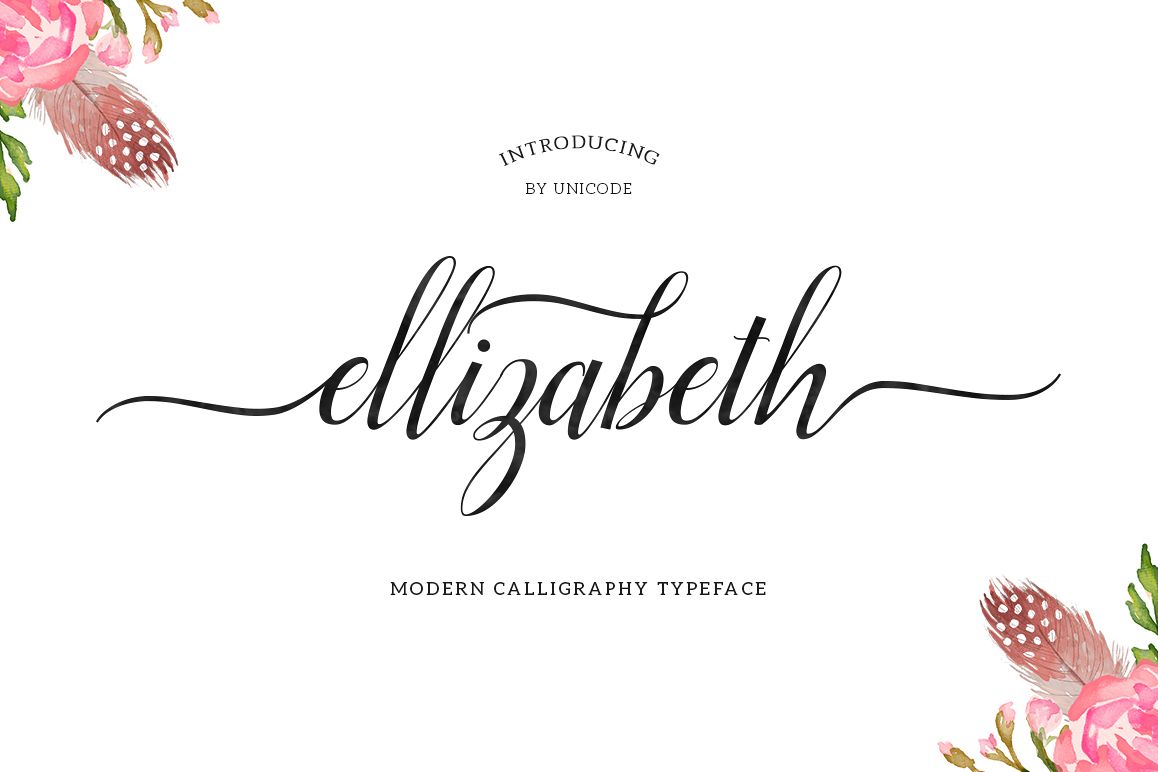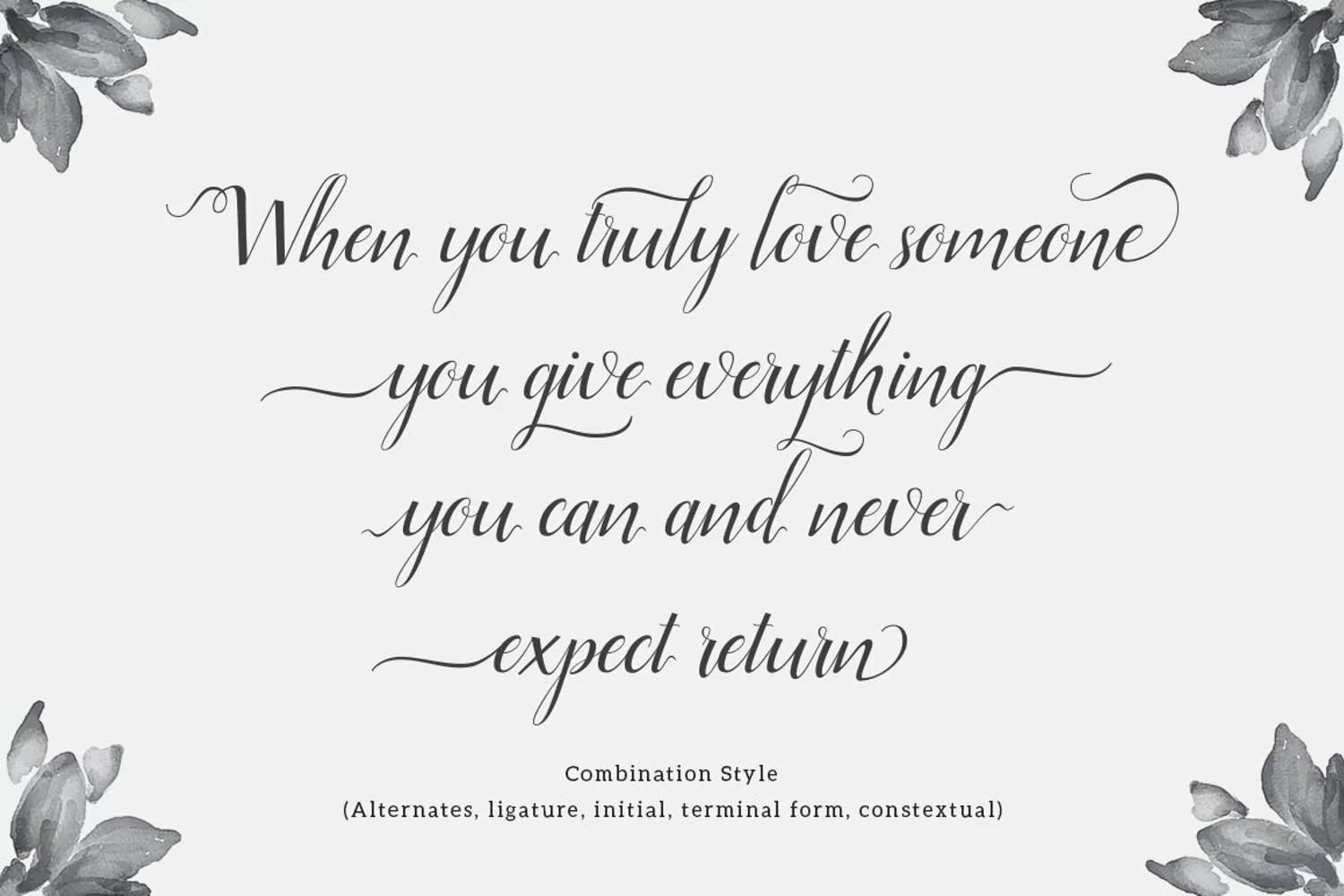
Elizabeth is a script typeface beautiful calligraphy and modern with inreguler baseline. This font is suitable for a wide range of products each project, such as wedding invitations, greeting cards, correspondence, and various other purposes and many more. This language support that some international fonts, you can get a unique ligatures, font, there are 460 glyphs, so many options that you can use for your projects,